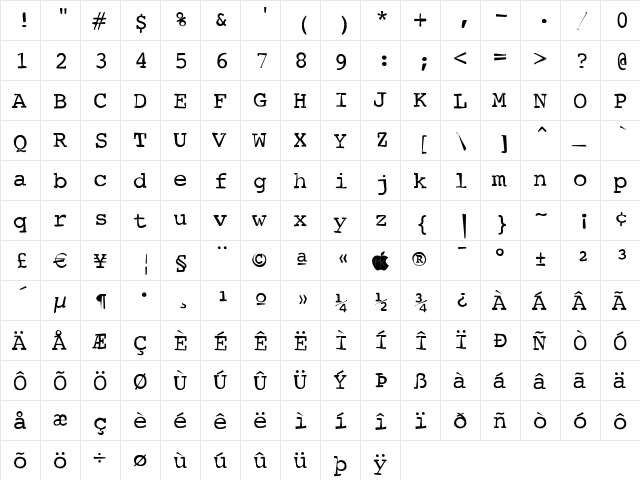
TypewriterScribbled Regular
Design Context for TypewriterScribbled Typeface
TypewriterScribbled brings the precise, column-aligned rhythm of monospaced typography to designs that value technical clarity and systematic order.